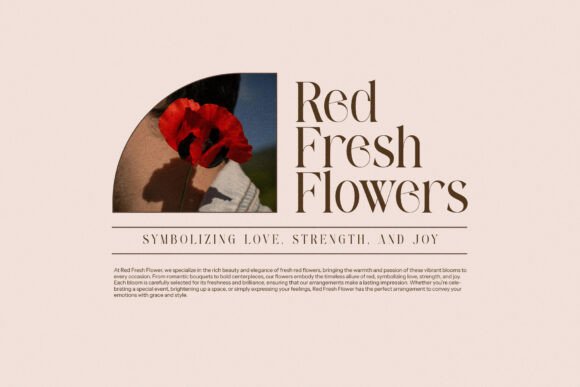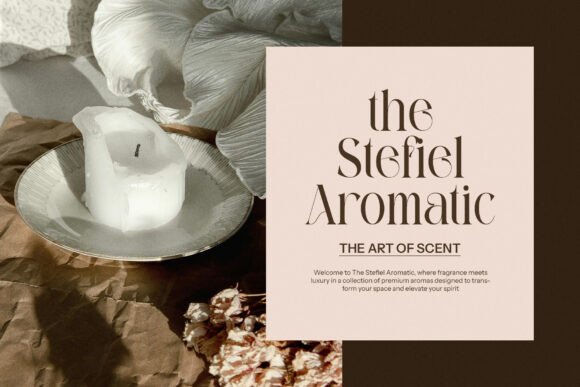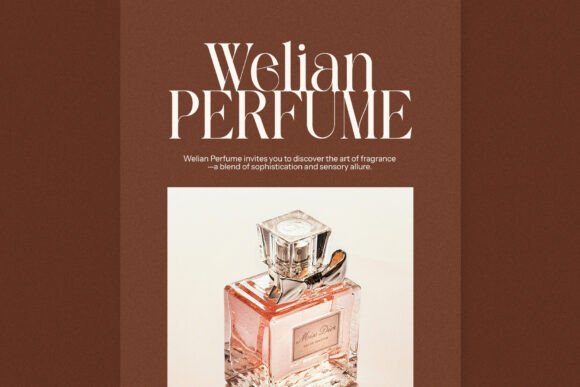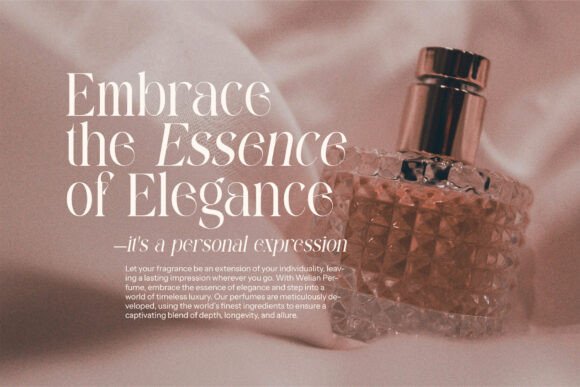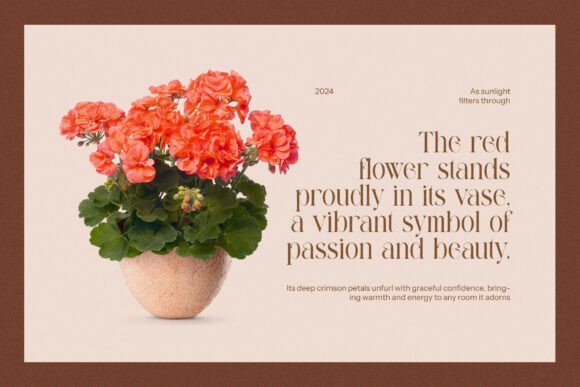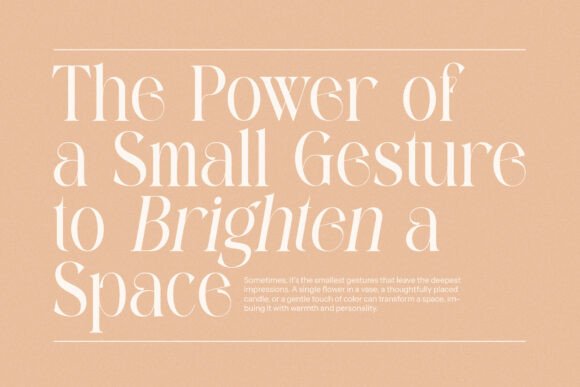
Introduction to Mefgan Font
Remember the thrill of finding that perfect font for a design project? The rush of excitement as you scroll through your favorite font libraries, searching for the one that captures the essence of your vision? For designers, this moment is a familiar and cherished experience. But what if you stumbled upon a font that not only met but exceeded your expectations? A font that effortlessly blends modern sophistication with vintage elegance, leaving a lasting impression on your audience.
Enter the Mefgan Font, a stunning typeface that’s about to become your new go-to design resource. With its sleek, modern lines and refined serifs, this high-quality font is perfect for designers seeking to add a touch of timeless beauty and contemporary flair to their creative projects.
Key Features of Mefgan Font
- Unique, hand-drawn design with a transparent background, perfect for creative projects
- Excellent for use in graphic design, digital art, and other creative pursuits as a valuable design resource
- Easy to customize and style, allowing designers to add a personal touch to their creative projects
Honest Review: Mefgan Font
I recently had the chance to work with the Mefgan Font, and I must say it’s been a great addition to my design resource library. The font’s free download made it easily accessible, and the transparent background option allowed for seamless integration with my creative project’s background.
What works well for me is the Mefgan Font’s high quality and versatility. The font is perfect for titles and headings, and its clean design makes it easy to read. I’ve used it in several projects, and it always looks professional and polished. ✨
Here are some of the key features that I appreciate:
- Perfect for titles and headings
However, I did encounter some limitations. The font is a bit limited in its character set, and it’s not ideal for body text. Additionally, the font’s style may not be suitable for every design project. ⚠️
Overall, I’m impressed with the Mefgan Font and would definitely recommend it as a design resource. It’s a great choice for creative projects where a high-quality, professional font is needed.
Mefgan Font is suitable for a wide range of creative projects, including graphic design, digital art, and publishing. Its unique design and transparent background make it an excellent choice for backgrounds, overlays, and other design elements.
Tips for Getting the Most Out of Mefgan Font
To maximize the potential of Mefgan Font, experiment with different font sizes, colors, and combinations. This font is highly versatile, allowing you to create unique and captivating designs with ease.